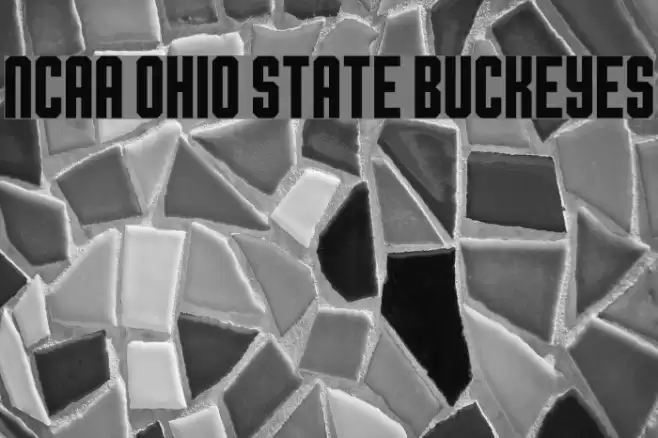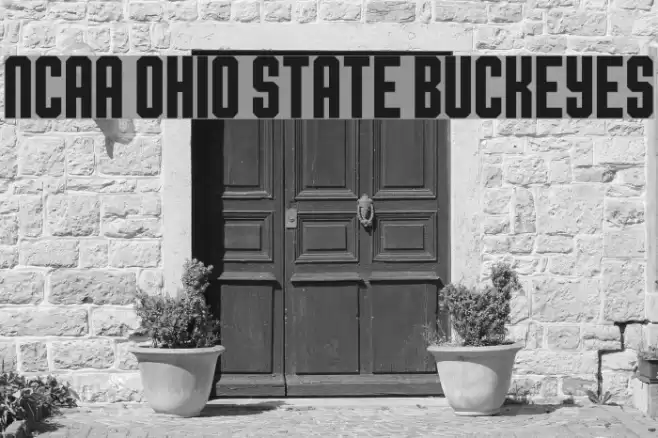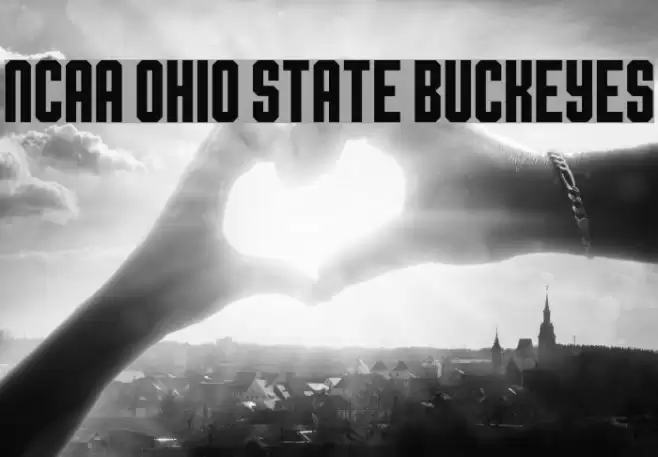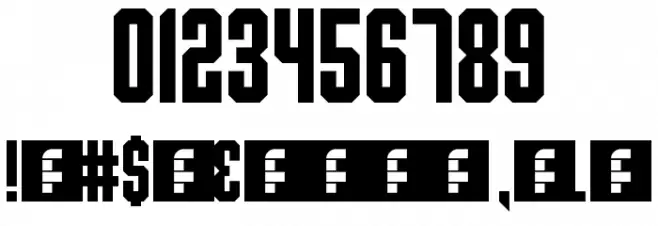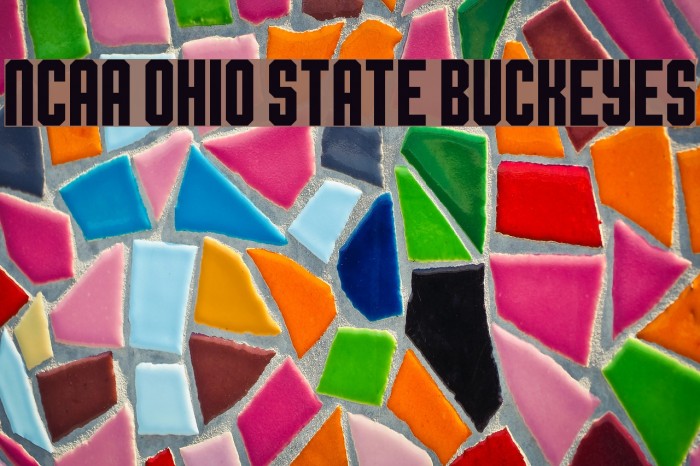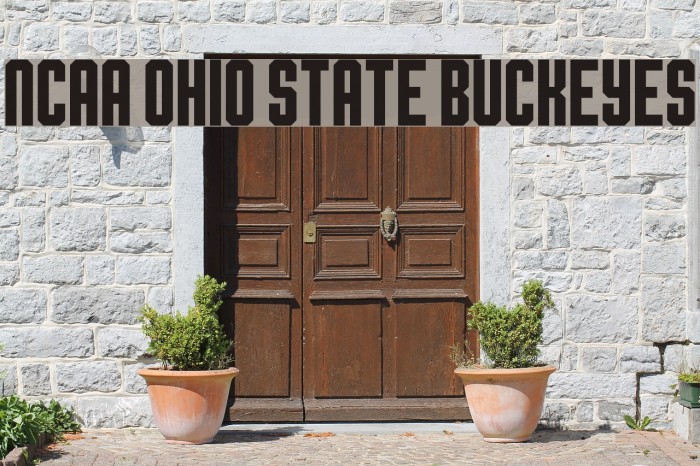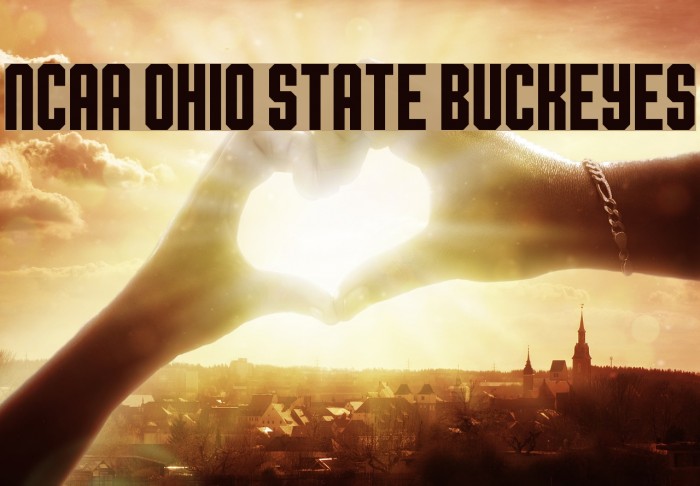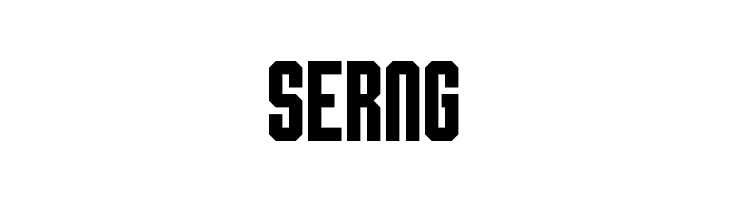
NCAA Ohio State Buckeyes Font
NCAA Ohio State Buckeyes Description
This font features a bold, geometric design with strong, angular lines and a blocky appearance. The uppercase letters are uniform in height, creating a cohesive and structured look. The characters have a consistent width, contributing to a balanced and harmonious aesthetic. The numbers and special characters maintain the same bold and angular style, ensuring visual consistency across all elements. This font's design is reminiscent of sports or collegiate themes, making it ideal for projects that require a strong, impactful presence.
A bold, geometric font with angular lines and a blocky appearance, ideal for sports themes from Uncategorized fonts.
- Proposed Projects: Sports branding, team logos, event posters, merchandise design, and collegiate-themed materials.